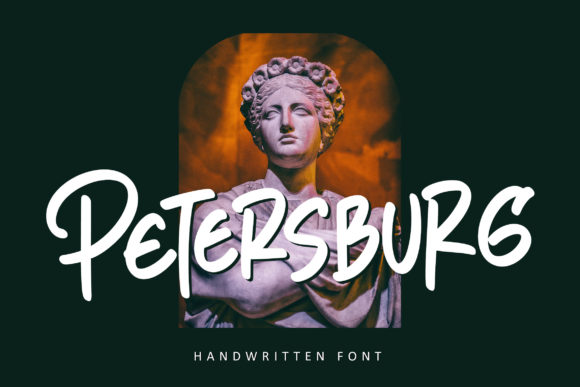
Unleash the energy and bold spirit of urban culture with Petersburg Font, a display font that pulsates with raw creativity and edgy style. This font is more than just a tool; it's an expression of your individuality, a reflection of your urban attitude.
Dive into the vibrant world of Petersburg Font and discover a universe of design possibilities. Create t-shirts that speak your mind, sportswear that exudes confidence, logos that leave a lasting impression, advertisements that demand attention, and clothing that embraces your unique style. Petersburg Font is your creative companion, ready to bring your designs to life with a touch of urban flair.
Feel the rush of Petersburg Font coursing through your veins as you craft email signatures that radiate personality. Make your mark in every communication, leaving a trail of unforgettable impressions. Petersburg Font is the ultimate accessory for the modern communicator, adding a dash of urban charm to every digital interaction.
With Petersburg Font, you're not just downloading a font; you're embracing a lifestyle, a mindset, an urban heartbeat. It's a font that fuels your imagination, ignites your creativity, and propels your designs to new heights.
So, why settle for ordinary when you can immerse yourself in the extraordinary? Embrace the allure of Petersburg Font today and let your designs resonate with the energy of urban life. Be bold, be unique, be unforgettable. Petersburg Font is your passport to a world of creative liberation.